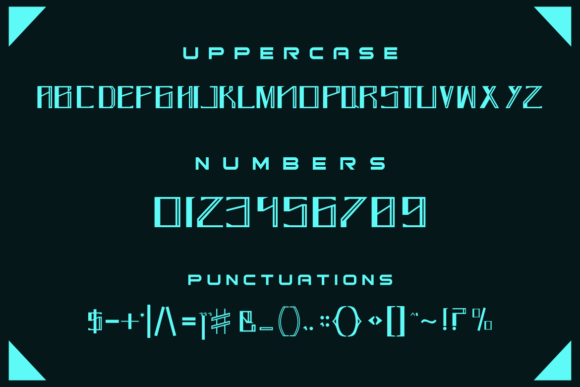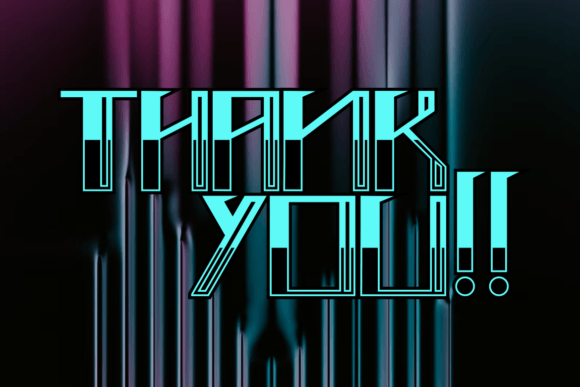
PLUTRON FONT SPECIMEN
Plutron is a unique slab serif font that feels beautiful classy, elegant, and modern. This font is perfectly suited for a wide variety of projects, such as signature, stationery, logo, wedding, typography quotes, magazine or book cover, website header, clothing, branding, packaging design, and more. Also, fashion-related branding or editorial design displays both masculine and feminine qualities.